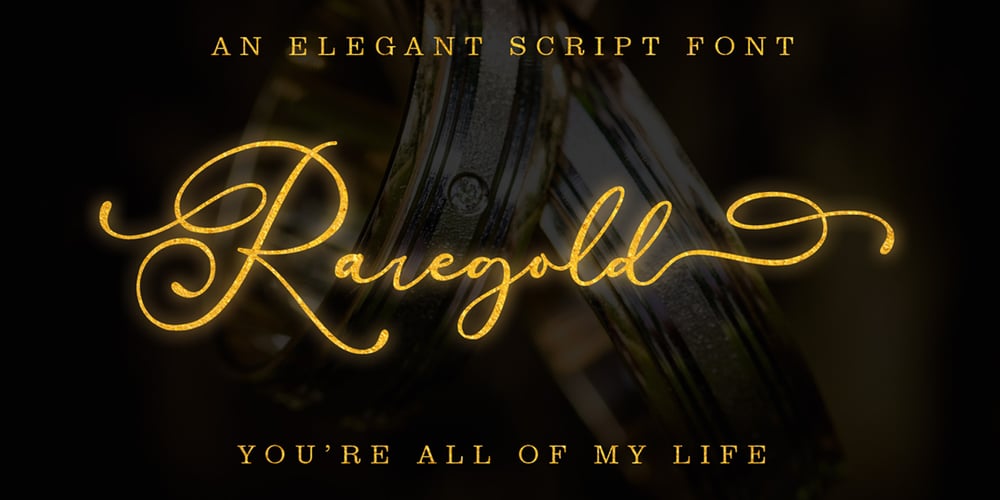
Raregold Script
Raregold Script font
Raregold Script Font Family was designed by Alde Saputro and published by Aldedesign. Raregold Script contains 1 styles and family package options. Raregold Script is a stylish script font that features a varying baseline, smooth line, modern and with a depth love. For those of you who are need a touch of love and modernity for your designs or branding, it can be used for various purposes such as headings, wedding, invitation, signature, logos, branding, t-shirt, letterhead, signage, lable, news, posters, badges etc.